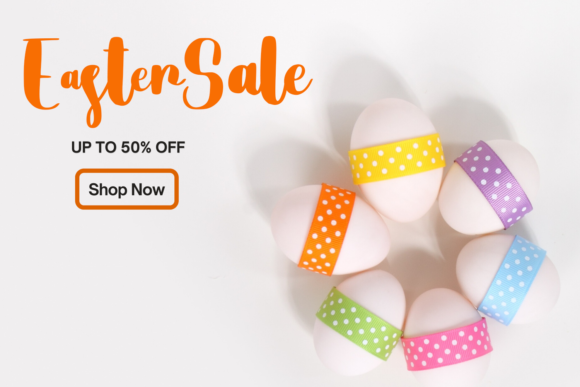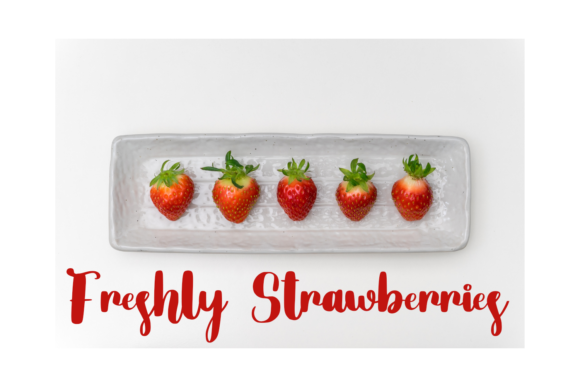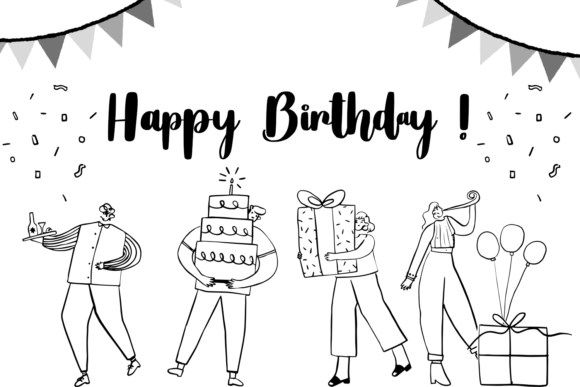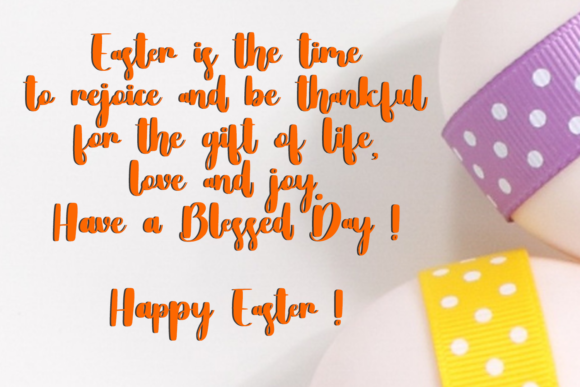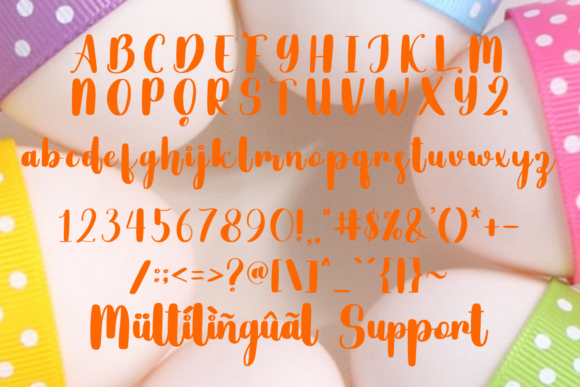
Easter Sunday Font: Add a Playful Touch to Your Designs
Easter Sunday is just around the corner, and what better way to celebrate than with a delightful font that captures the whimsy and charm of the holiday? Look no further than the Easter Sunday Font, a cute and charming handwritten font that’s sure to brighten up each of your designs.
A Whimsical and Quirky Font
The Easter Sunday Font is a dancing brush font that’s perfect for adding a playful touch to your designs. Its whimsical and slightly quirky style makes it ideal for Easter-themed projects, but it’s also versatile enough to use for a wide range of other designs, from birthday cards to social media graphics.
Key Features of Easter Sunday Font
- Handwritten style: The Easter Sunday Font has a charming, handwritten look that’s perfect for creating friendly and approachable designs.
- Whimsical and quirky: This font’s playful style makes it ideal for Easter-themed designs, but it’s also great for adding a touch of personality to other projects.
- Dancing brush font: The Easter Sunday Font has a lively, dynamic feel that’s sure to capture the attention of your audience.
The Easter Sunday Font is a great choice for designers and crafters who want to add a personal touch to their projects. Whether you’re creating Easter-themed cards, decorations, or gifts, this font is sure to inspire your creativity.
Here are just a few ideas for using the Easter Sunday Font:
- Easter cards and invitations
- Easter-themed decorations, such as garlands and banners
- Craft projects, such as scrapbooking and DIY gifts
Why Choose Easter Sunday Font?
So why choose the Easter Sunday Font for your next project? Here are just a few reasons:
- Unique and eye-catching: This font’s playful style is sure to capture the attention of your audience and set your designs apart.
- Versatile: The Easter Sunday Font can be used for a wide range of projects, from Easter-themed designs to birthday cards and social media graphics.